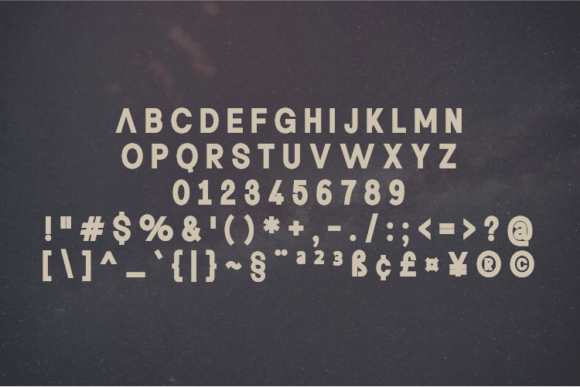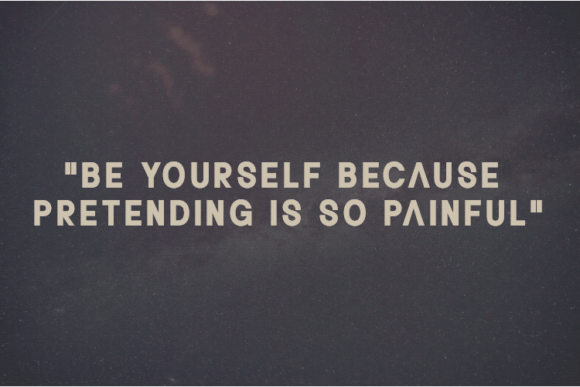
The Perfect Font for Your Next Big Project
As designers, we’ve all been there – staring at a blank page, trying to come up with the perfect font to bring our vision to life. And then, it hits us – the perfect combination of style, functionality, and versatility. For many, that perfect font is the Axeloan Font.
Axeloan Font is a sleek, all-caps sans serif font that effortlessly adapts to any design context. With its smooth lines, clean design, and subtle contrast, it’s the perfect choice for logos, branding, and web headings. Whether you’re working on a bold, eye-catching campaign or a simple, yet elegant website, Axeloan Font has got you covered.
For designers, the value of Axeloan Font lies in its ability to elevate any project with its timeless, sophisticated look. With Axeloan Font, you can take your designs to the next level and create a lasting impression on your audience.
Axeloan Font Key Features
- Unique Characteristics: Axeloan Font features a distinctive, modern sans-serif design with clean lines, rounded edges, and a high x-height, making it ideal for digital and print media applications.
- Font Weight and Style: Axeloan Font is available in multiple font weights, including Light, Regular, Medium, Bold, and Black, as well as italic and oblique styles, providing flexibility in design and layout.
Designer Review: Axeloan Font
After giving Axeloan Font a try, I have mixed feelings about this font family. Here are my thoughts:
- Unique aesthetic: Axeloan Font has a distinct style that sets it apart from more traditional font families.
- Good legibility: The font is easy to read, even at smaller sizes, making it suitable for body text.
- Customizable: Axeloan Font offers a range of weights and styles, allowing designers to tailor the look to their needs.
- Limited language support: Axeloan Font may not support certain languages or scripts, which could be a problem for global brands.
- Not ideal for headings: While Axeloan Font works well for body text, it may not be the best choice for headings or titles, where a more dramatic font is often preferred.
- Not as versatile as some other fonts: Axeloan Font may not be suitable for all design applications, such as infographics or technical documents.
Overall, Axeloan Font is a solid choice for designers looking for a unique, legible font family. However, it may not be the best fit for every project, and designers should carefully consider the limitations before making a decision.
Tips for Getting the Most Out of Axeloan Font
For optimal results, use Axeloan Font in conjunction with bold or italic styles to create visual interest.
Experiment with different font sizes and colors to find the perfect balance for your design.
Axeloan Font is ideal for:
- Body text in modern and minimalist
Alternatives to Axeloan Font for Designers
Pacifico is a beautiful, elegant script font ideal for creative projects, such as wedding invitations, greeting cards, and logos. It is perfect for adding a touch of sophistication and romance to your designs.
Comparison to Axeloan Font: Pacifico has a more elegant and refined feel, whereas Axeloan Font is more modern and sleek. Pacifico is suitable for projects that require a softer, more feminine touch.
Great Vibes is a modern script font designed for creative and professional projects. It is ideal for logos, headings, and titles that require a unique and stylish touch.